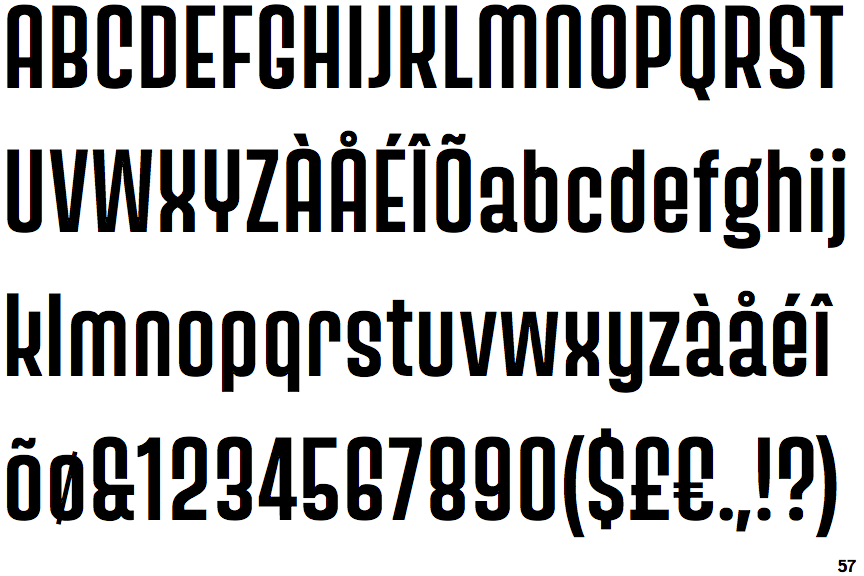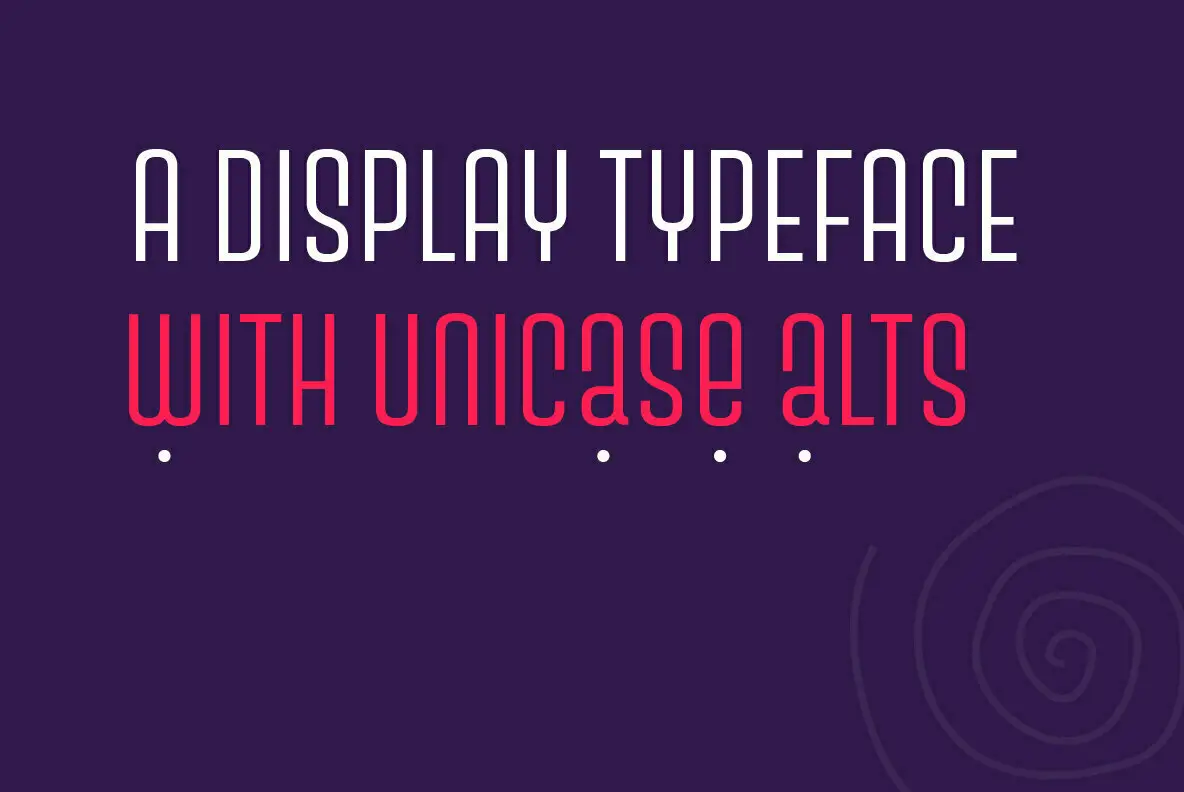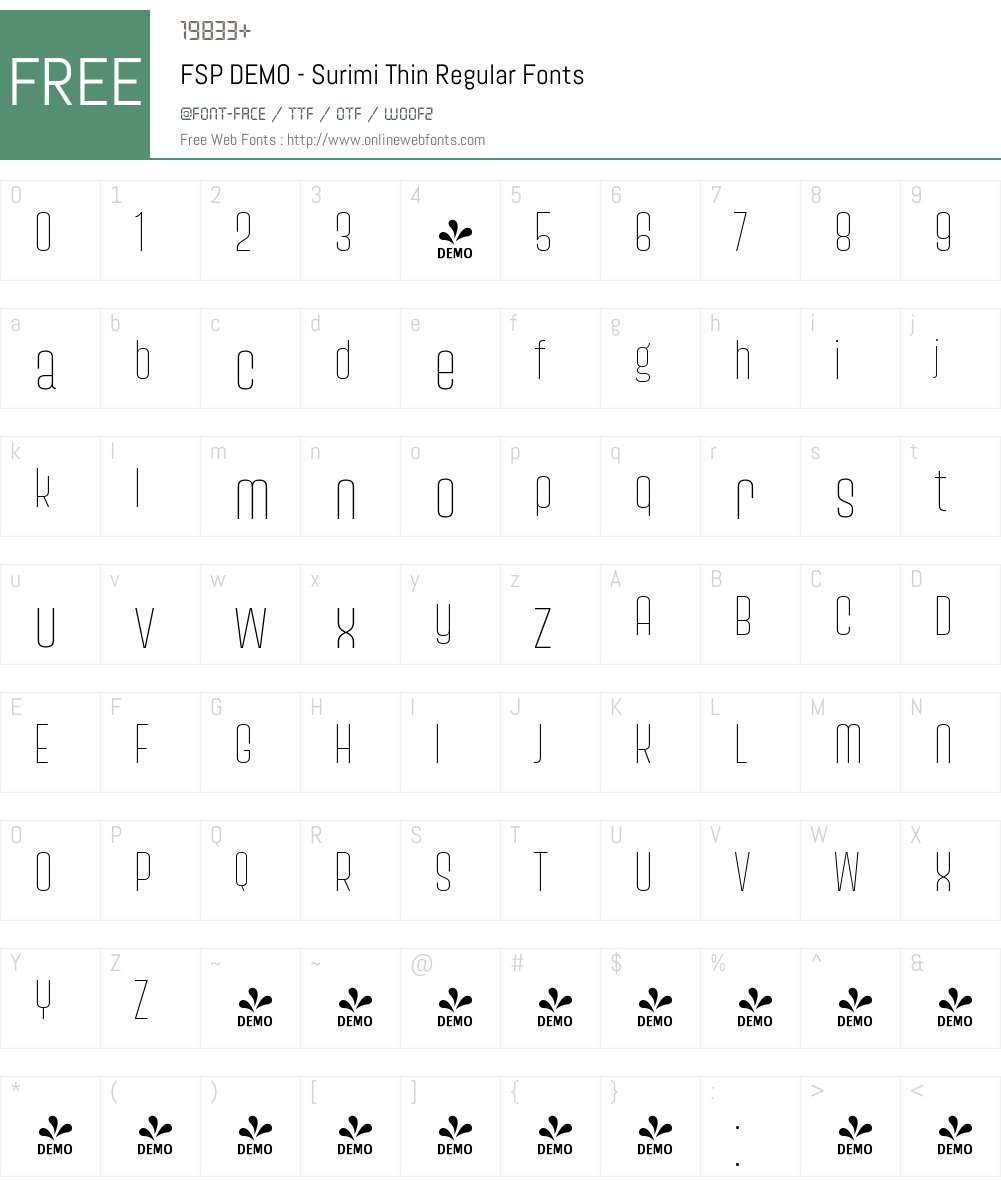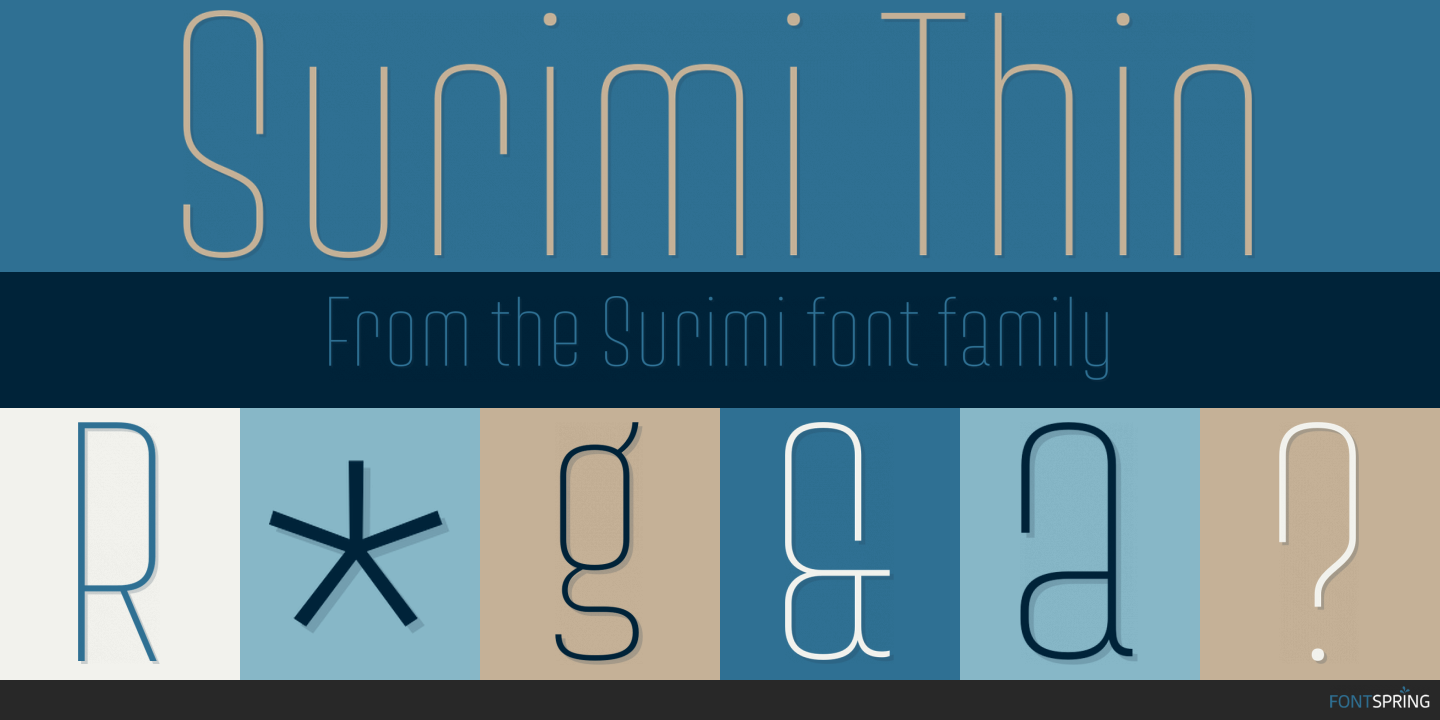
Surimi Bold Font Free Download . surimi is a condensed display typeface available in six styles. Designed to stand out with its low crossbars and its unicase. surimi font is a condensed display typeface available in six styles. Designed to stand out with its low crossbars and unicase alternates, this. Designed to stand out with its low crossbars and unicase alternates, this cool little family will be. Perfect for logotypes or titles. surimi is a condensed font with six styles that stands out due to its low crossbars and unicase alternative; About us | blog | latest fonts | popular fonts | fontset | tools | free fonts |. surimi is a condensed display typeface in six styles. Designed to stand out with its low crossbars and its unicase alternates, this cool. thousands of designers (famous or not) use the image font detection system to find a font or similar free fonts. Designed to stand out with its low crossbars and. surimi display font. information about the font surimi bold from jcfonts, and where to download it. This is a cool, bold and neat display typeface manufactured by jcfonts.
thousands of designers (famous or not) use the image font detection system to find a font or similar free fonts. surimi is a condensed display typeface in six styles. surimi is a condensed display typeface available in six styles. Designed to stand out with its low crossbars and. Designed to stand out with its low crossbars and its unicase. surimi is a condensed font with six styles that stands out due to its low crossbars and unicase alternative; surimi is a condensed display typeface in six styles. Perfect for logotypes or titles. surimi display font. This is a cool, bold and neat display typeface manufactured by jcfonts.
Surimi Bold Font Free Download Designed to stand out with its low crossbars and its unicase. Designed to stand out with its low crossbars and unicase alternates, this. Designed to stand out with its low crossbars and its unicase alternates, this cool. surimi is a condensed display typeface in six styles. information about the font surimi bold from jcfonts, and where to download it. Designed to stand out with its low crossbars and. Designed to stand out with its low crossbars and unicase alternates, this cool little family will be. About us | blog | latest fonts | popular fonts | fontset | tools | free fonts |. surimi display font. surimi font is a condensed display typeface available in six styles. Perfect for logotypes or titles. This is a cool, bold and neat display typeface manufactured by jcfonts. surimi is a condensed font with six styles that stands out due to its low crossbars and unicase alternative; thousands of designers (famous or not) use the image font detection system to find a font or similar free fonts. surimi is a condensed display typeface in six styles. Designed to stand out with its low crossbars and its unicase.
Identifont Surimi Bold Font Free Download surimi is a condensed display typeface in six styles. information about the font surimi bold from jcfonts, and where to download it. Designed to stand out with its low crossbars and unicase alternates, this cool little family will be. Designed to stand out with its low crossbars and. Designed to stand out with its low crossbars and its. Surimi Bold Font Free Download.
selkieswimyoudeeper on Tumblr Surimi Bold Font Free Download surimi display font. Designed to stand out with its low crossbars and its unicase. Designed to stand out with its low crossbars and unicase alternates, this. surimi font is a condensed display typeface available in six styles. Designed to stand out with its low crossbars and its unicase alternates, this cool. surimi is a condensed font with. Surimi Bold Font Free Download.
Abrade Bold Font xFonts.pro Surimi Bold Font Free Download Designed to stand out with its low crossbars and its unicase alternates, this cool. This is a cool, bold and neat display typeface manufactured by jcfonts. surimi is a condensed display typeface in six styles. About us | blog | latest fonts | popular fonts | fontset | tools | free fonts |. surimi font is a condensed. Surimi Bold Font Free Download.
The Bold Font Free Download Surimi Bold Font Free Download Designed to stand out with its low crossbars and. surimi is a condensed display typeface in six styles. This is a cool, bold and neat display typeface manufactured by jcfonts. surimi is a condensed font with six styles that stands out due to its low crossbars and unicase alternative; Designed to stand out with its low crossbars and. Surimi Bold Font Free Download.
Origin Font Free Download Surimi Bold Font Free Download This is a cool, bold and neat display typeface manufactured by jcfonts. surimi is a condensed display typeface in six styles. information about the font surimi bold from jcfonts, and where to download it. Designed to stand out with its low crossbars and its unicase. Designed to stand. Surimi Bold Font Free Download.
Fonts similar to Surimi Surimi Bold Font Free Download surimi is a condensed font with six styles that stands out due to its low crossbars and unicase alternative; thousands of designers (famous or not) use the image font detection system to find a font or similar free fonts. About us | blog | latest fonts | popular fonts | fontset | tools | free fonts |. . Surimi Bold Font Free Download.
Surimi Font Family » Free Download Vector Stock Image Icon Surimi Bold Font Free Download Designed to stand out with its low crossbars and its unicase. Designed to stand out with its low crossbars and its unicase alternates, this cool. Designed to stand out with its low crossbars and. About us | blog | latest fonts | popular fonts | fontset | tools | free fonts |. This is a cool, bold and neat display. Surimi Bold Font Free Download.
Rateline Font Dafont Free Surimi Bold Font Free Download Designed to stand out with its low crossbars and its unicase. surimi display font. surimi is a condensed font with six styles that stands out due to its low crossbars and unicase alternative; surimi font is a condensed display typeface available in six styles. thousands of designers (famous or not) use the image font detection system. Surimi Bold Font Free Download.
33+ Best Bold & Thick Fonts in 2024 Design Shack Surimi Bold Font Free Download Designed to stand out with its low crossbars and. Designed to stand out with its low crossbars and its unicase alternates, this cool. surimi is a condensed display typeface available in six styles. information about the font surimi bold from jcfonts, and where to download it. Perfect for logotypes or titles. surimi is a condensed display typeface. Surimi Bold Font Free Download.